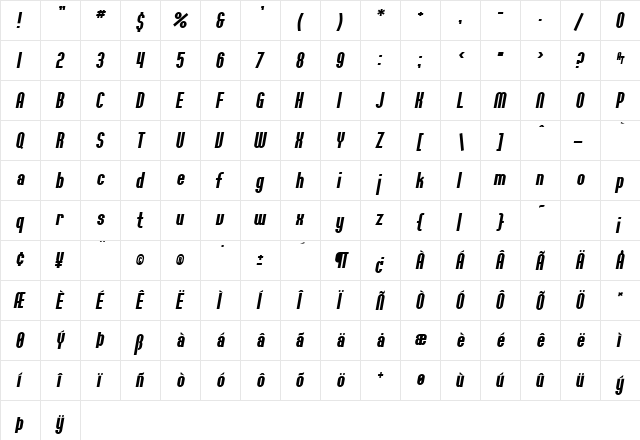
SF Willamette Bold Italic
Design Context for SF Willamette Typeface
SF Willamette offers clean, dependable letterforms without strong stylistic allegiance, making it a practical choice for designers who need flexibility. Its italic angle brings a sense of urgency and motion to the letterforms. Its bold stroke weight gives it real presence on the page.
Pro Tip: Try SF Willamette for annotation and caption copy alongside an upright companion — the contrast in angle creates a dynamic but ordered typographic system.